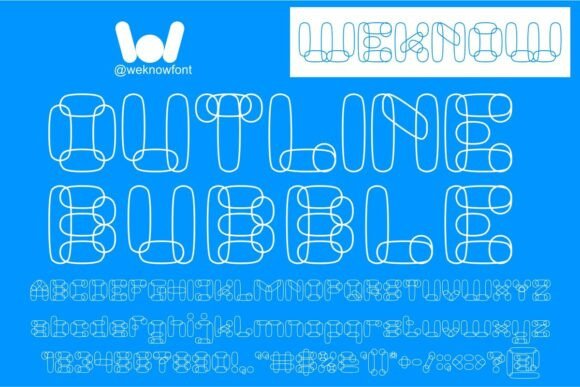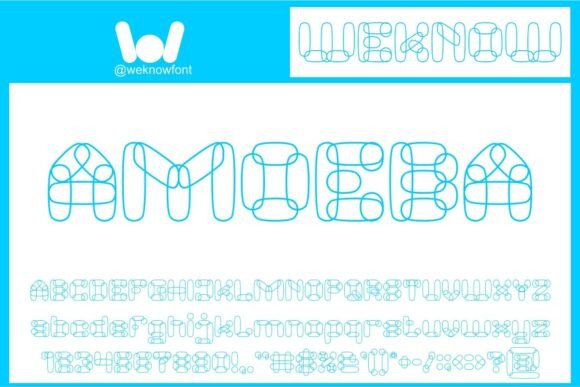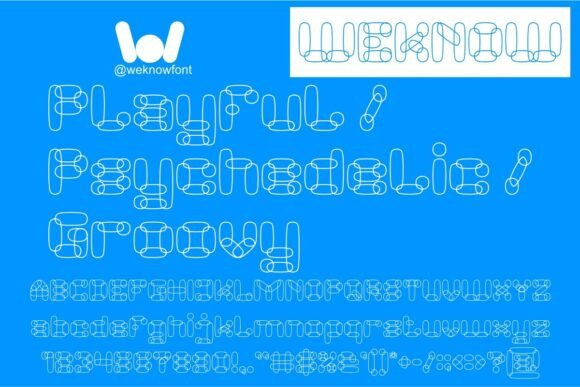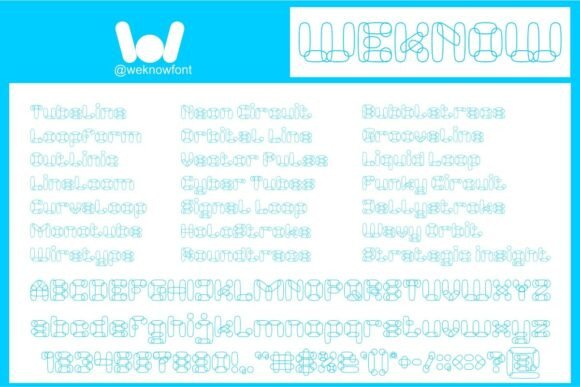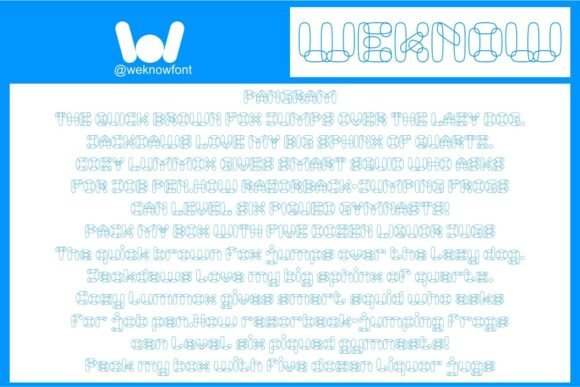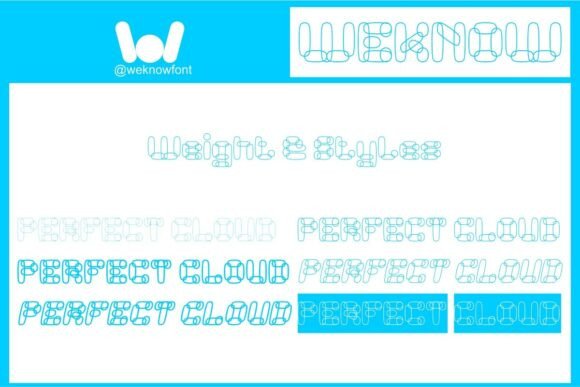
Introduction to Perfect Cloud Font Font
Fonts play a crucial role in design, and the Perfect Cloud Font font is a typeface that brings both character and versatility to any project. Whether you’re working on a branding project, a website, or a print design, the Perfect Cloud Font font offers a unique style that can elevate your work.
Step into the future of minimalist design with Perfect Cloud.
This experimental typeface is constructed entirely from overlapping, transparent “pill” shapes, creating a complex, architectural line-art aesthetic It challenges traditional legibility to offer a visual rhythm that feels like a blueprint or a digital constellation.
Key Features of Perfect Cloud Font Font
Why Choose Perfect Cloud Font Font?
The Perfect Cloud Font font is more than just a typeface – it’s a design tool that helps you communicate your message with style and clarity. Its unique character set and versatile design make it suitable for a wide range of applications, from elegant invitations to bold headlines.
With its carefully crafted letterforms and balanced proportions, the Perfect Cloud Font font ensures readability and visual appeal across all mediums.
What makes Perfect Cloud Font font special?
The Perfect Cloud Font font stands out with its unique design, exceptional readability, and versatility across various design applications.